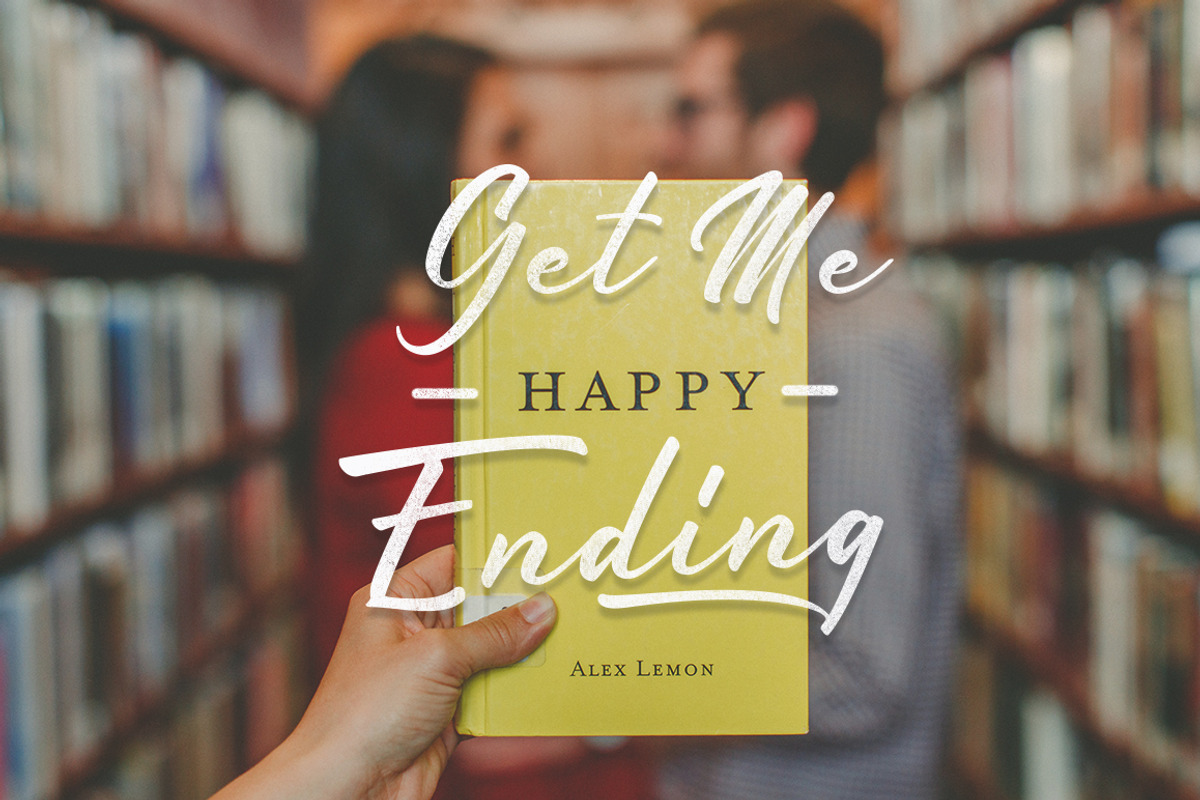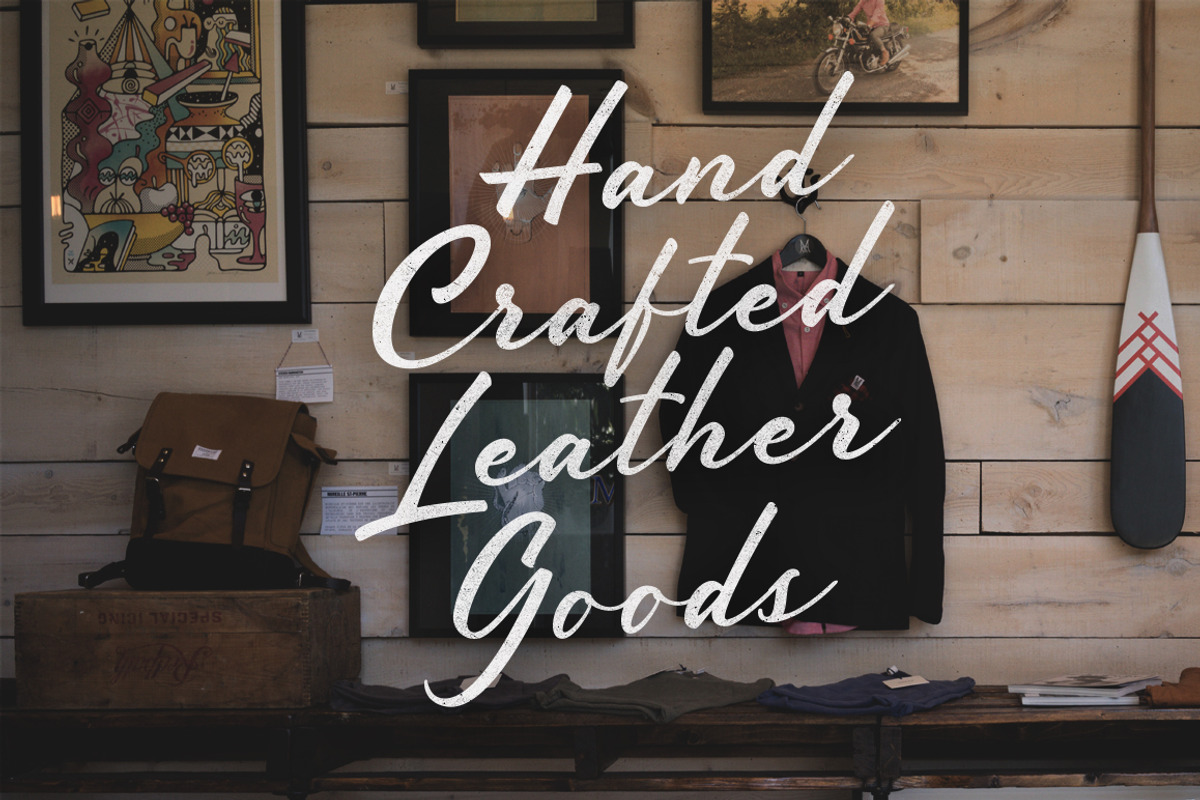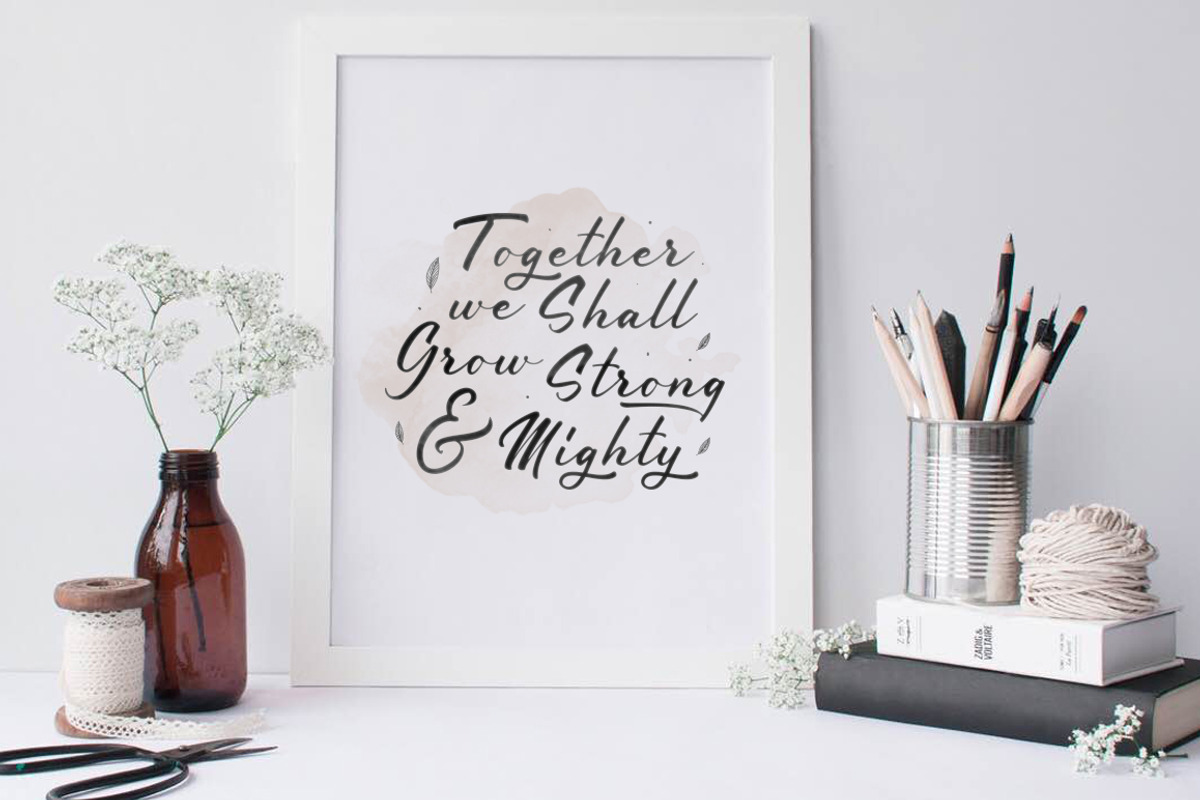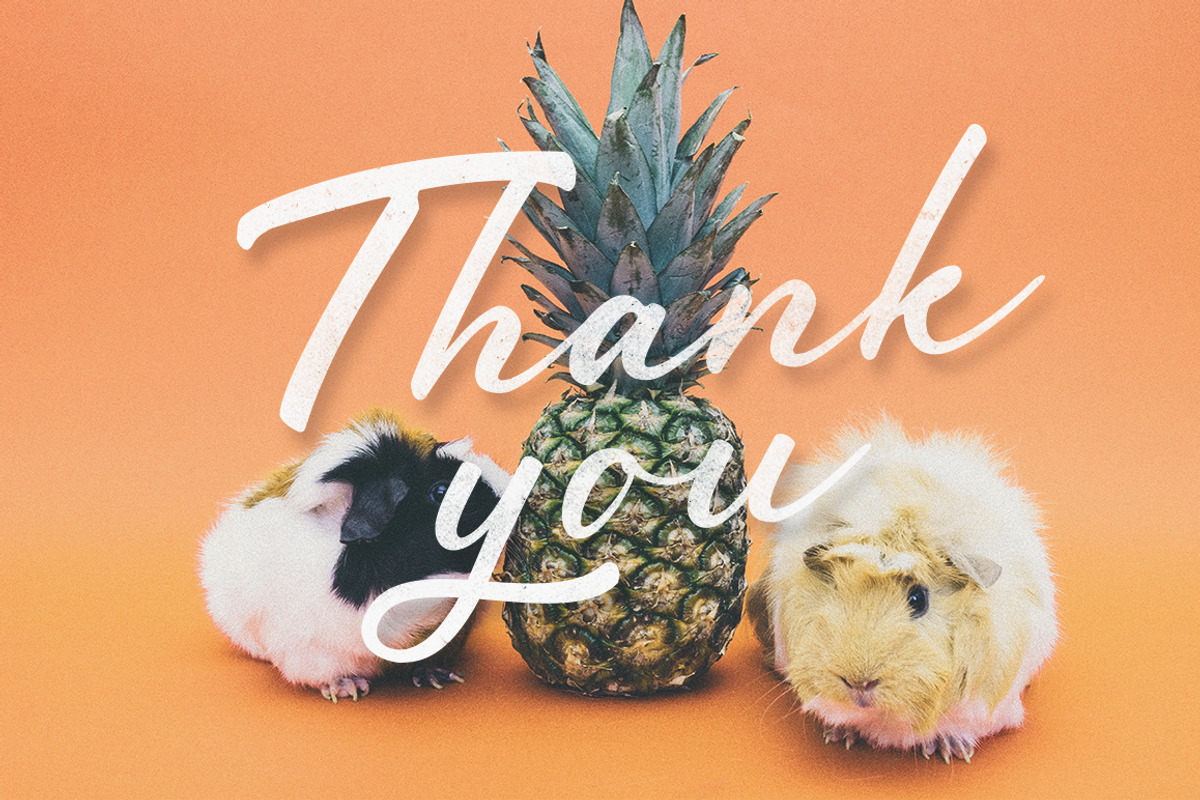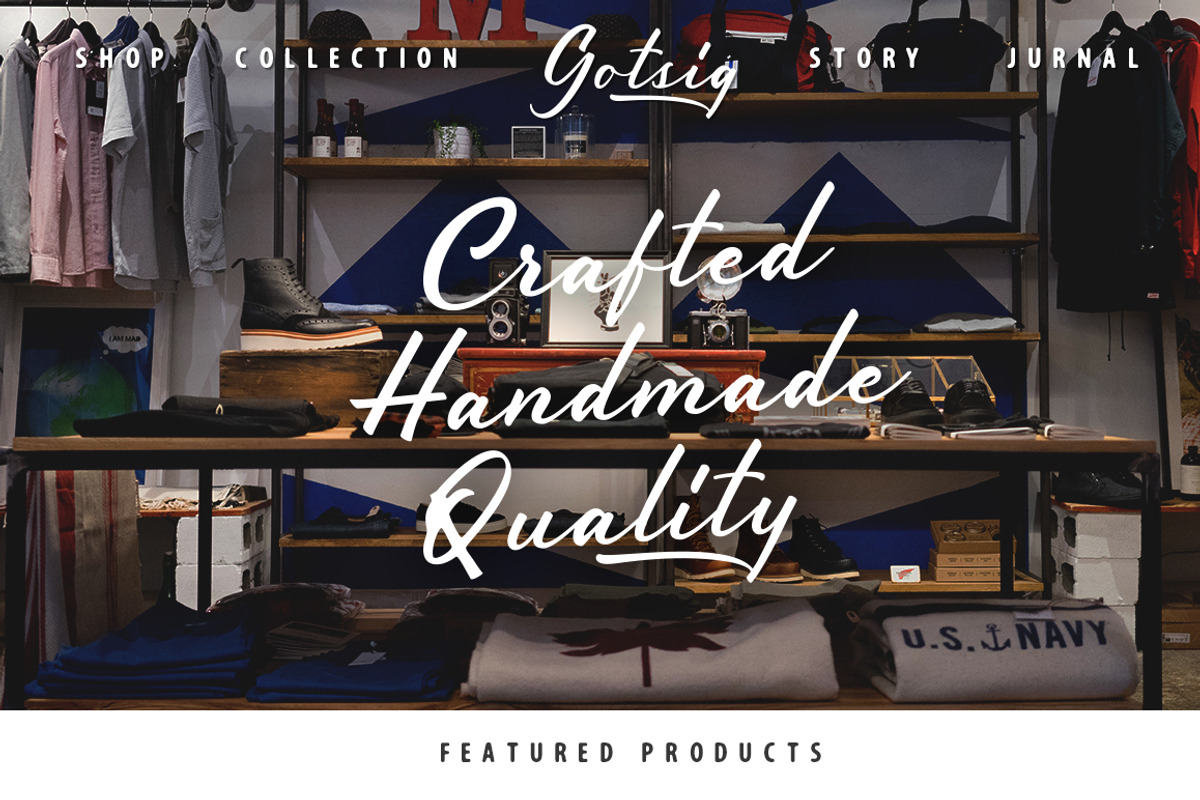
Society typeface
Society typeface by maghrib is a font selected for branding, posters, packaging, typography.
- Society typeface comes with upper and lowercase characters, punctuation, numerals,supports international languages and OpenType features wit
- Stylistic alternates for key lower case characters are also available, accessible in the Adobe Illustrator Glyphs panel, or under Stylistic
Why Society typeface is worth a look
Society typeface by maghrib fits naturally into Branding, posters, packaging, typography.